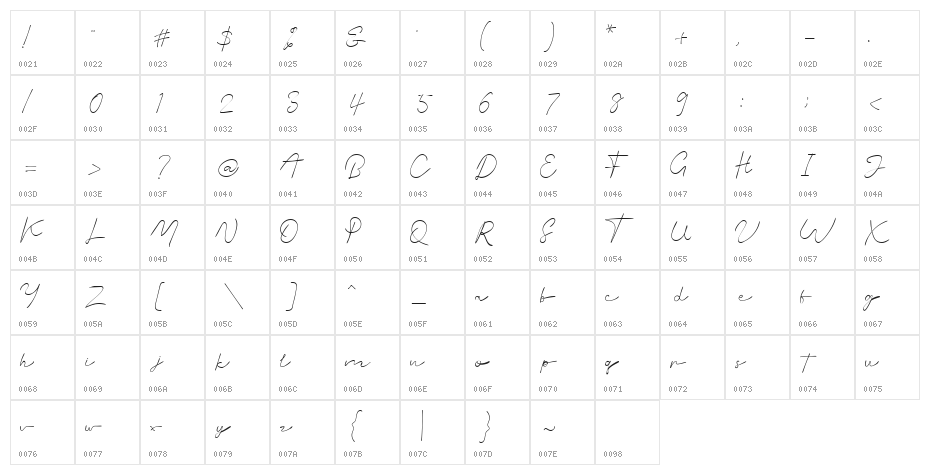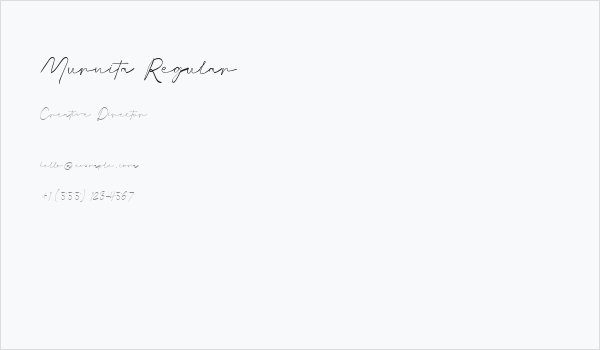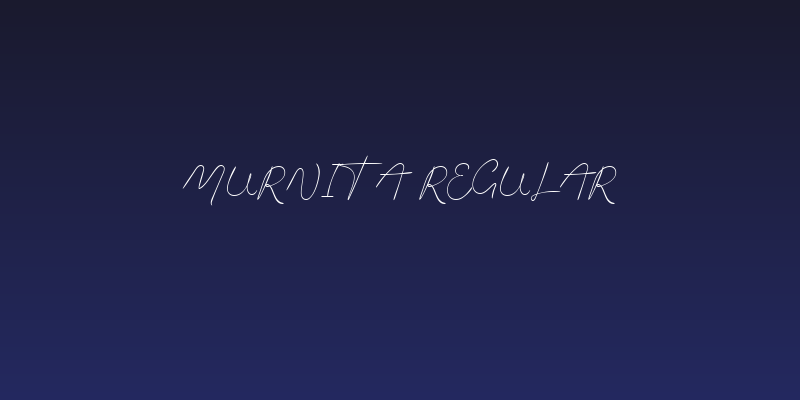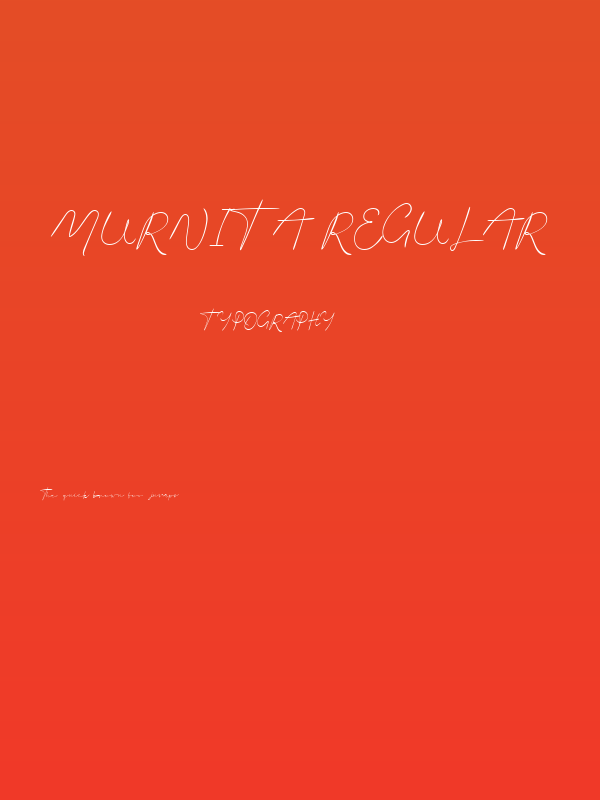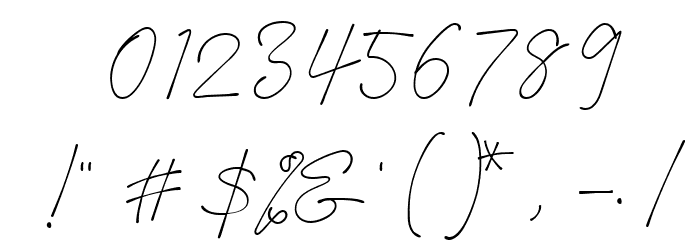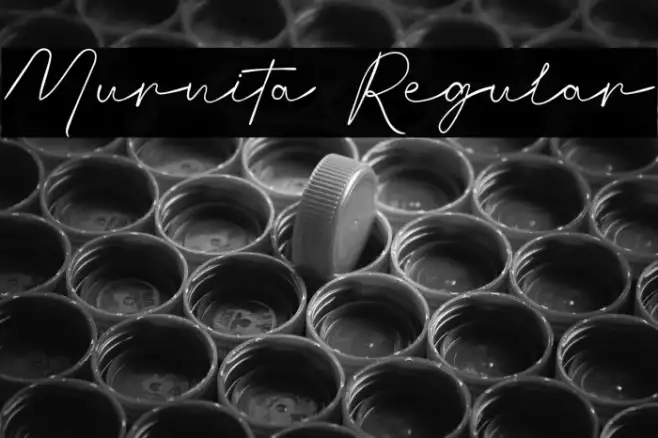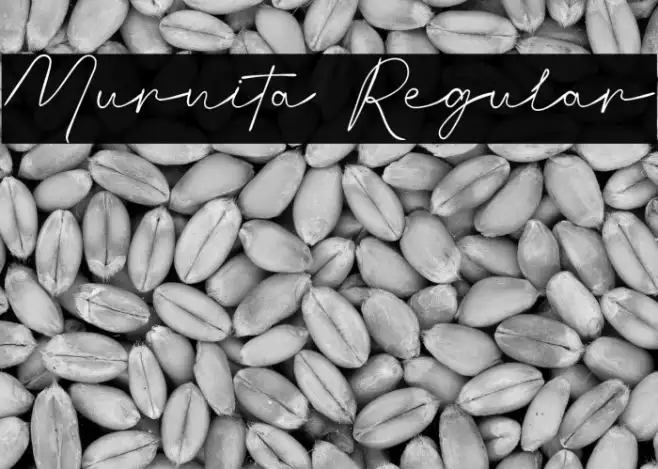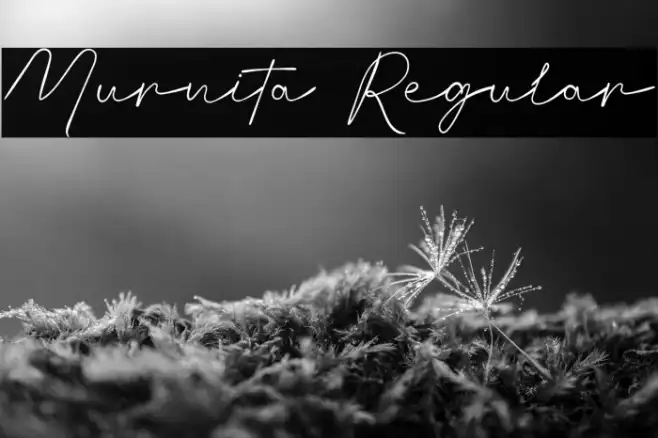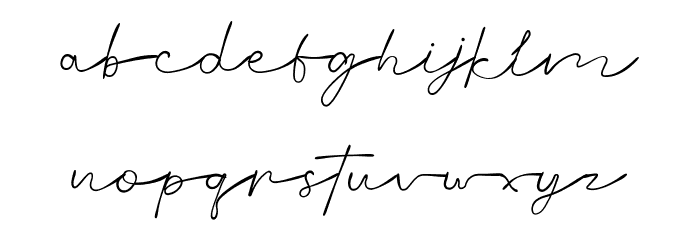
Murnita Regular Font
This font features a fluid and elegant script style, characterized by its smooth, flowing lines and cursive letterforms. The uppercase letters are slightly more structured, while the lowercase letters exhibit a more relaxed and natural handwriting style. The numerals and special characters maintain the same fluidity, ensuring consistency throughout. The overall appearance is both sophisticated and approachable, making it suitable for a variety of applications where a personal touch is desired.
| Proposed Projects | Ideal for wedding invitations, greeting cards, personal branding, and elegant packaging designs. |